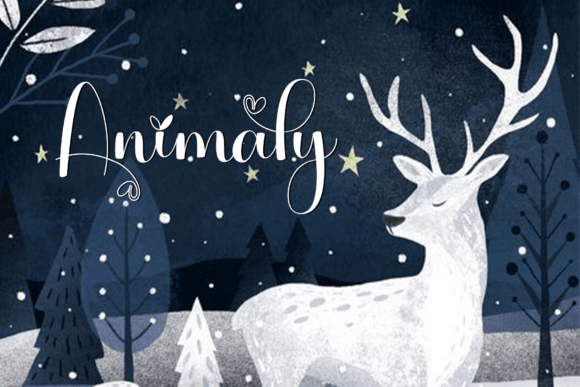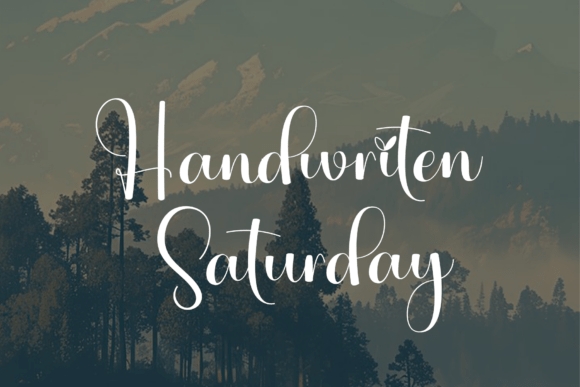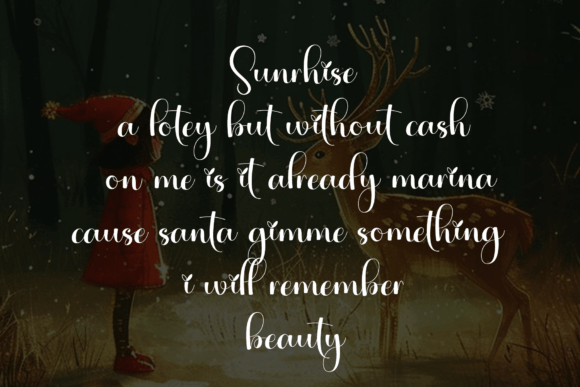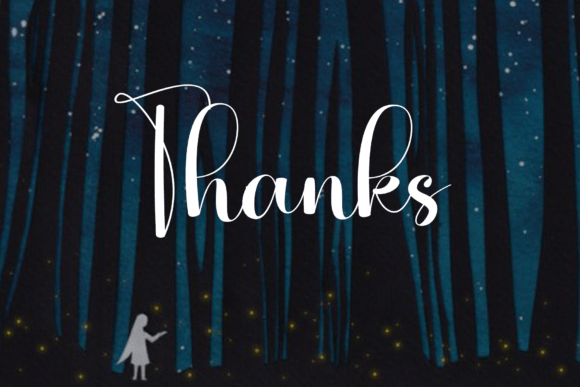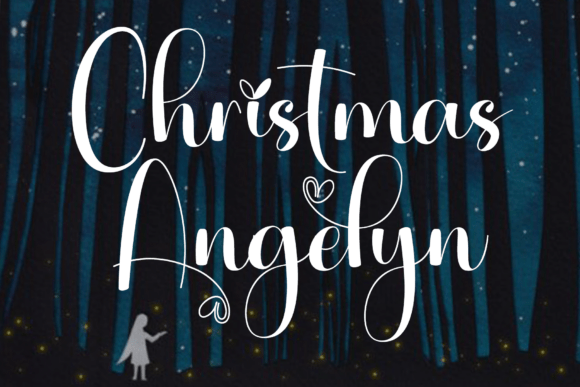
Introducing Christmas Angelyn Font: Elevate Your Designs with Elegance and Sophistication
Are you looking for a font that exudes elegance, sophistication, and a touch of romance? Look no further than Christmas Angelyn Font, a stunning handwritten script font that is sure to elevate your designs to the next level. In this article, we’ll dive into the features and benefits of Christmas Angelyn Font, and explore how it can be used to create beautiful and functional designs for a variety of applications.
A Graceful, Modern, and Stylized Handwritten Script Font
Christmas Angelyn Font is a modern and stylized handwritten script font that boasts smooth, fluid strokes and lovely ornamental curves. Its feminine and professional appearance makes it perfect for designers and crafters looking to add a touch of elegance to their work. The font’s consistent weight and clean connections ensure excellent legibility, making it easy to read and understand.
Christmas Angelyn Font is a versatile font that can be used for a wide range of applications, including:
- Custom sublimation designs: Create stunning sublimation designs for products such as mugs, tumblers, and clothing with Christmas Angelyn Font.
- Boutique branding: Use Christmas Angelyn Font to create a unique and recognizable brand identity for your boutique or small business.
- Personalized gifts: Add a personal touch to gifts such as stationery, cards, and gifts with Christmas Angelyn Font.
- Custom stationery: Create beautiful and elegant stationery with Christmas Angelyn Font, perfect for personal or business use.
- Any project that needs a clean, highly stylized, and beautifully functional handwritten script.
Key Features of Christmas Angelyn Font
So, what sets Christmas Angelyn Font apart from other fonts? Here are some of its key features:
- Smooth, fluid strokes: Christmas Angelyn Font features smooth and fluid strokes that give it a elegant and sophisticated appearance.
- Lovely ornamental curves: The font’s ornamental curves add a touch of romance and whimsy to any design.
- Feminine and professional: Christmas Angelyn Font has a feminine and professional appearance that makes it perfect for a wide range of applications.
- Consistent weight and clean connections: The font’s consistent weight and clean connections ensure excellent legibility.
Why Choose Christmas Angelyn Font?
So, why should you choose Christmas Angelyn Font for your next design project? Here are just a few reasons:
- Elegance and sophistication: Christmas Angelyn Font adds a touch of elegance and sophistication to any design.
- Versatility: The font can be used for a wide range of applications, from custom sublimation designs to boutique branding.
- Easy to read and understand: Christmas Angelyn Font’s consistent weight and clean connections ensure excellent legibility.
- Unique and recognizable: The font’s unique and stylized appearance makes it perfect for creating a recognizable brand identity.
Tips for Using Christmas Angelyn Font
Here are a few tips for using Christmas Angelyn Font in your designs:
- Use it as a headline font: Christmas Angelyn Font is perfect for use as a headline font, adding a touch of elegance and sophistication to any design.
- Pair it with other fonts: Experiment with pairing Christmas Angelyn Font with other fonts to create a unique and visually appealing design.
- Use it for body text: Christmas Angelyn Font’s excellent legibility makes it suitable for use as a body text font, perfect for creating long-form content.
In conclusion, Christmas Angelyn Font is a stunning handwritten script font that is sure to elevate your designs to the next level. Its elegant and sophisticated appearance, versatility, and excellent legibility make it perfect for a wide range of applications. Whether you’re a designer or crafter, Christmas Angelyn Font is a must-have font for any project that needs a clean, highly stylized, and beautifully functional handwritten script.